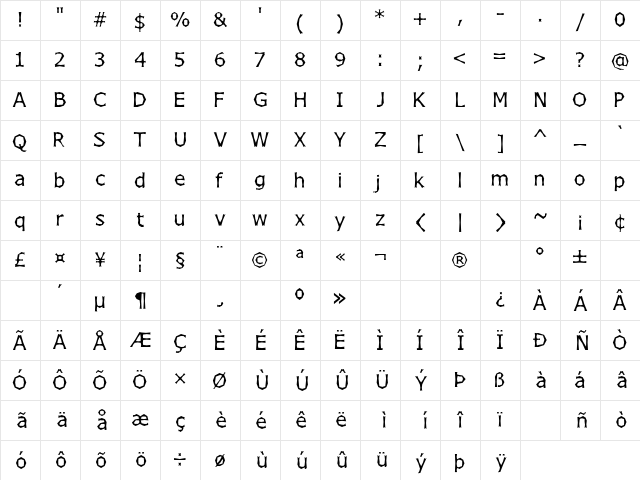
Chizzler Normal Regular
Design Context for Chizzler Normal Typeface
Chizzler Normal takes a measured approach to typography — its balanced proportions and neutral character make it a reliable workhorse for both digital and print work.
Pro Tip: Use Chizzler Normal in both headline and body roles to test its range before committing to a single application.